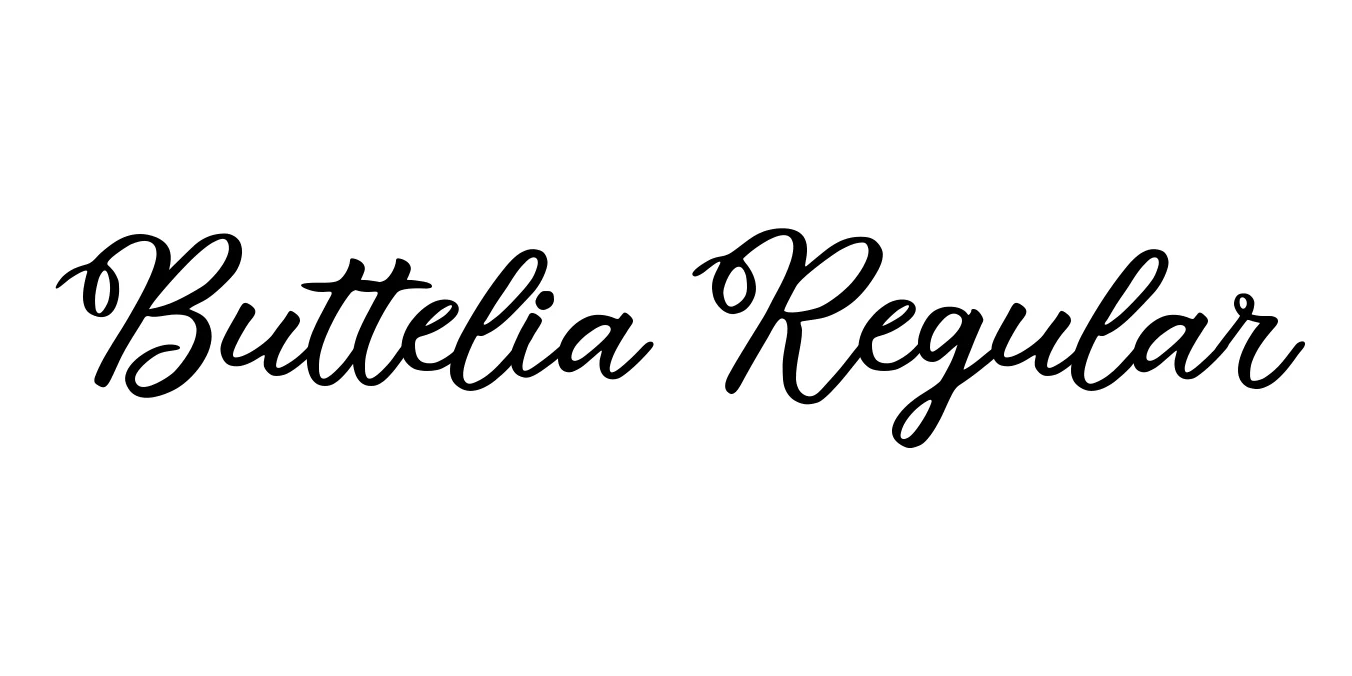
Buttelia Regular
Designed by Typemate
Buttelia Regular is a modern and elegant calligraphy font designed to bring a sense of grace and fluid movement to digital and print designs. Characterized by its delicate strokes and natural-looking ligatures, it mimics the beauty of hand-lettered ink on paper, providing a sophisticated aesthetic for various creative applications.
This font was developed with versatility in mind, offering a sophisticated look for formal occasions while maintaining an approachable, handwritten feel. The Typemate design team focused on balancing readability with artistic flourish, making it a favorite for contemporary branding, social media graphics, and premium packaging projects.
Buttelia Regular Best Uses
Ideal for invitations, RSVP cards, and envelopes.
Perfect for creating elegant logos and social media identities.
Adds a sophisticated touch to magazine headers and quotes.
Excellent for personalized messages and holiday cards.